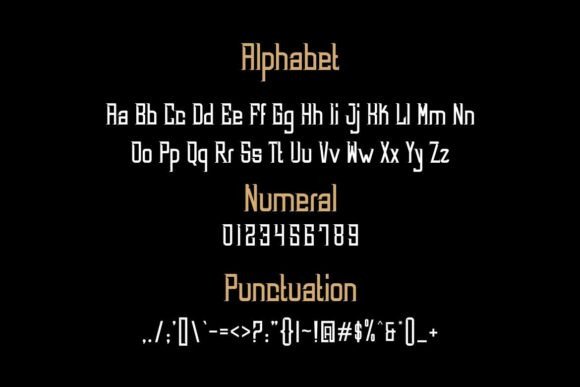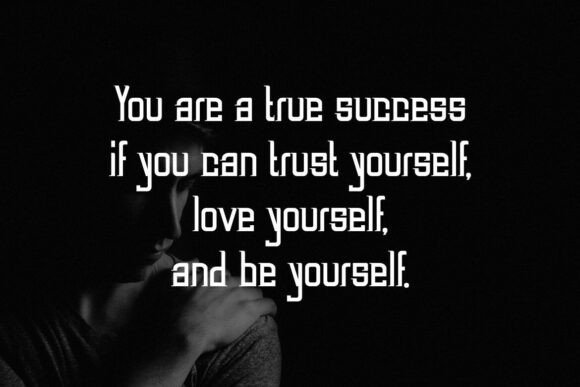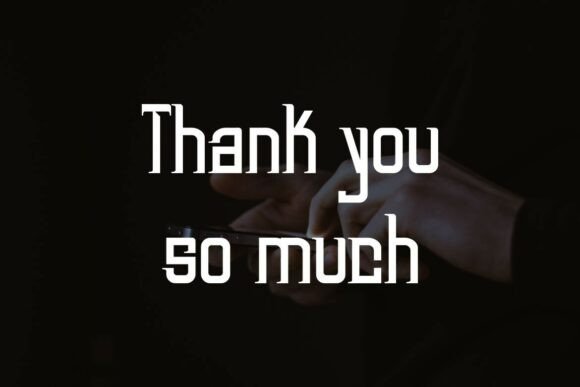
Introduction to Julion Font
Julion | A Modern Serif Display Font Command attention with Julion, a sophisticated display font that redefines modern elegance.
This typeface features tall, condensed proportions paired with sharp, minimalist serifs and unique geometric cutouts Its architectural structure and balanced visual weight make it a premier choice for high-end fashion branding, cinematic title cards, luxury editorial layouts, and corporate identities.
Key Features of Julion Font
Why Choose Julion Font?
Julion Font offers exceptional quality and versatility, making it a valuable addition to your design toolkit. Whether you’re creating for personal projects or commercial use, Julion Font delivers professional results.